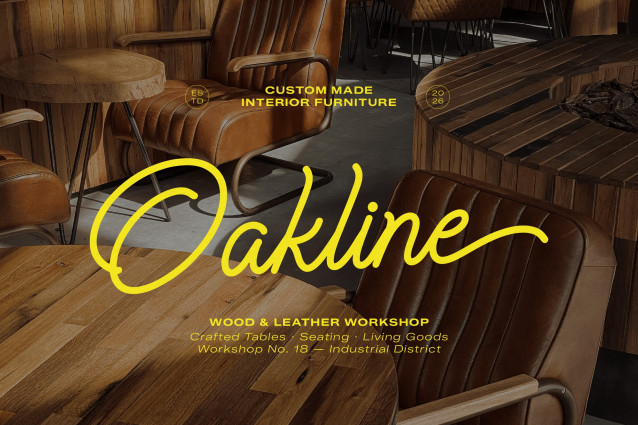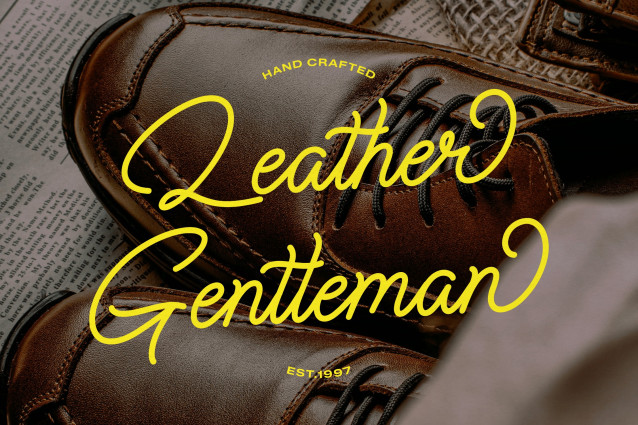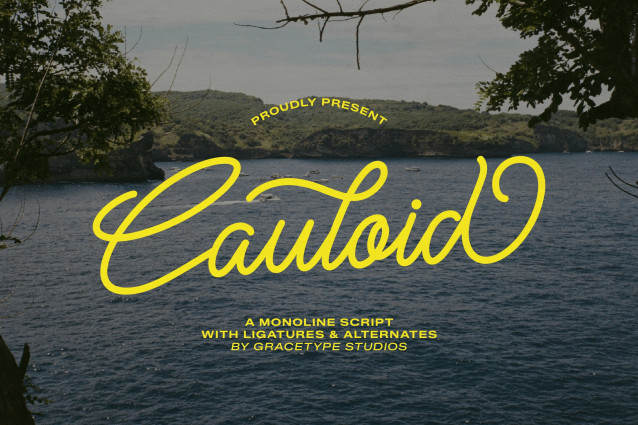
Cauloid Script Font
Cauloid Script Font | Monoline Script, from Gracetypestudio, suitable for any projects such as: logos, branding projects, homeware designs, product packaging, mugs, quotes, posters, shopping bags, t-shirts, book covers, name card, invitation cards, greeting cards, label, photography, watermark, special events, and all your other lovely projects that need a Script taste.